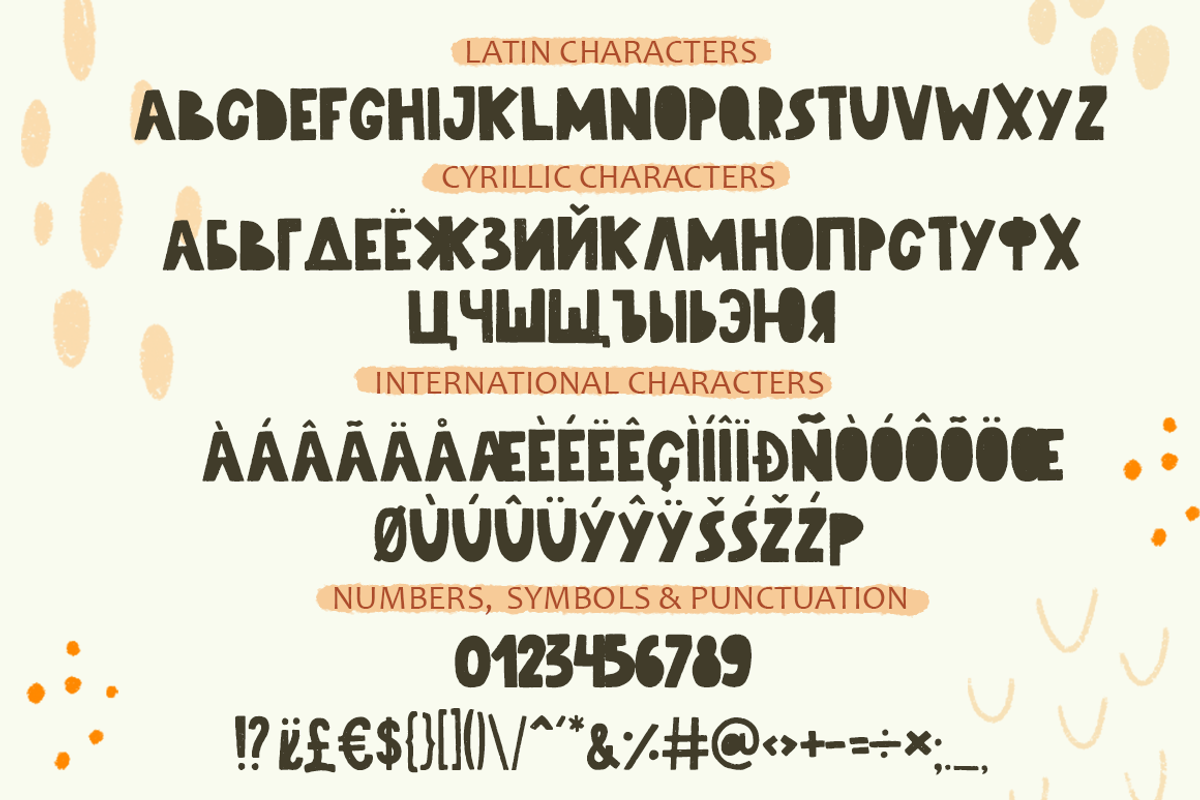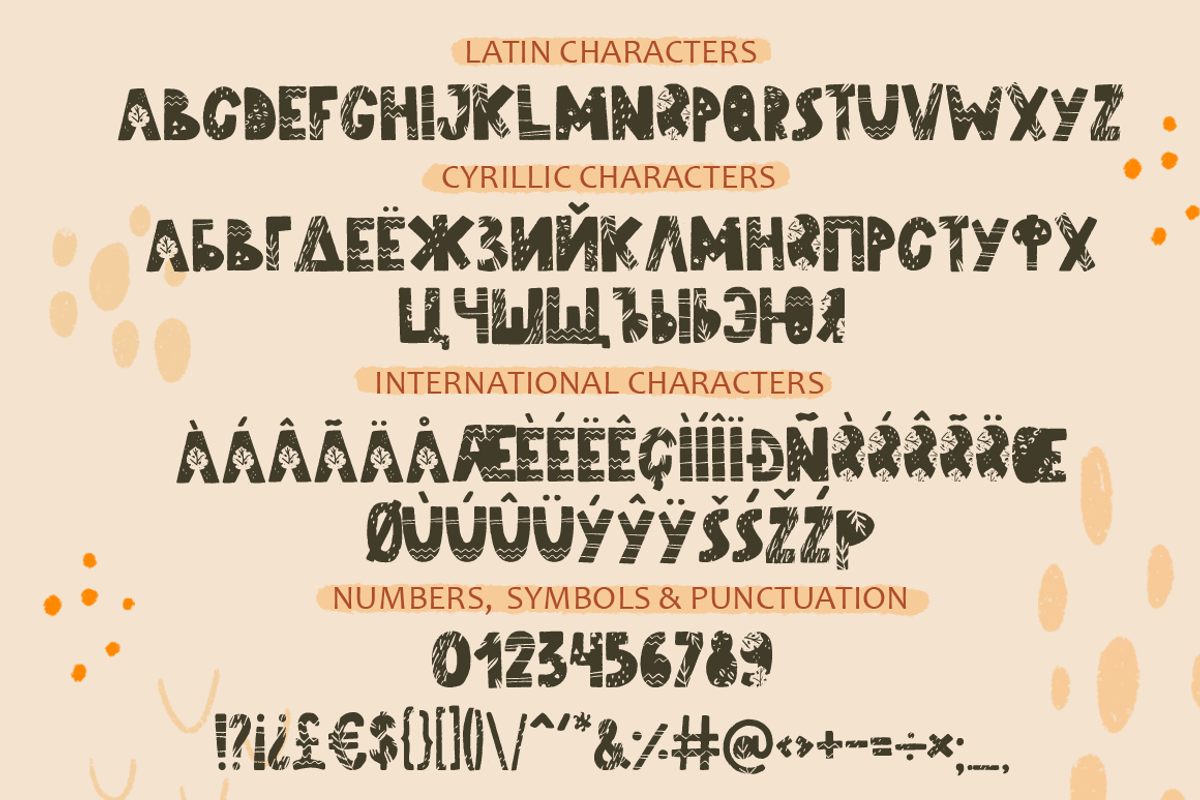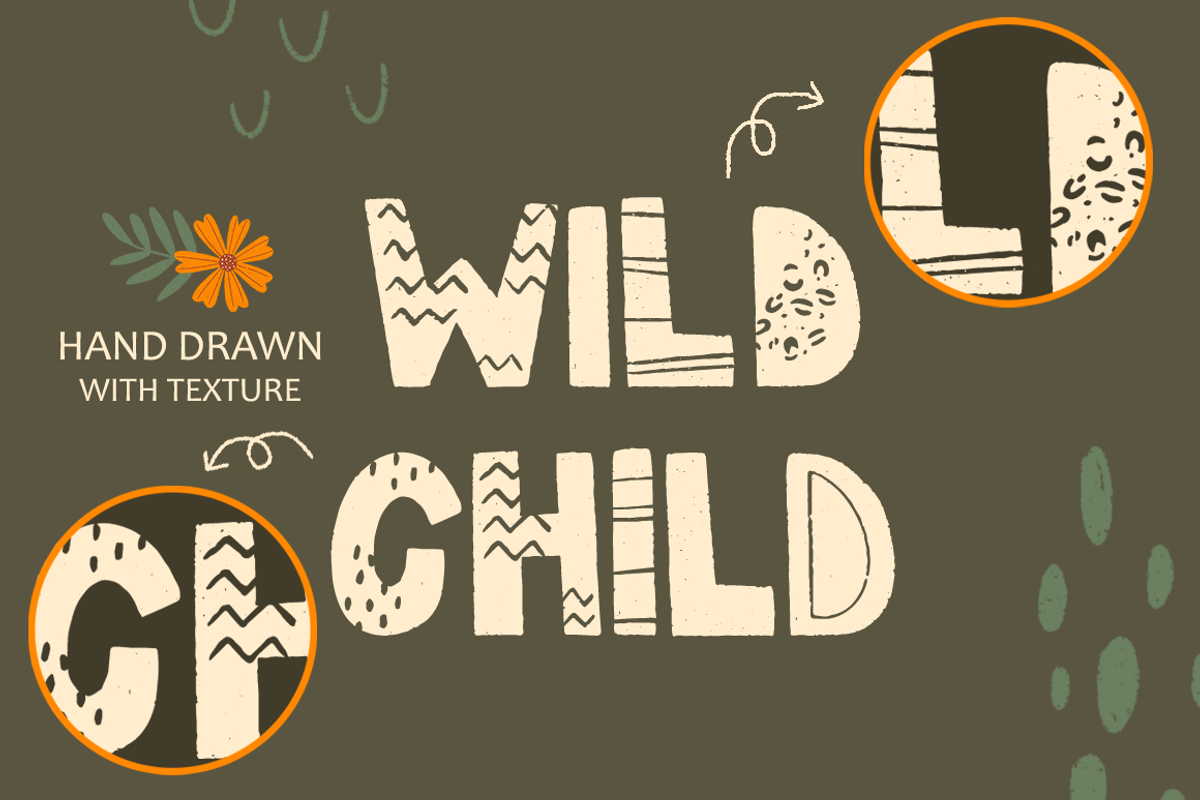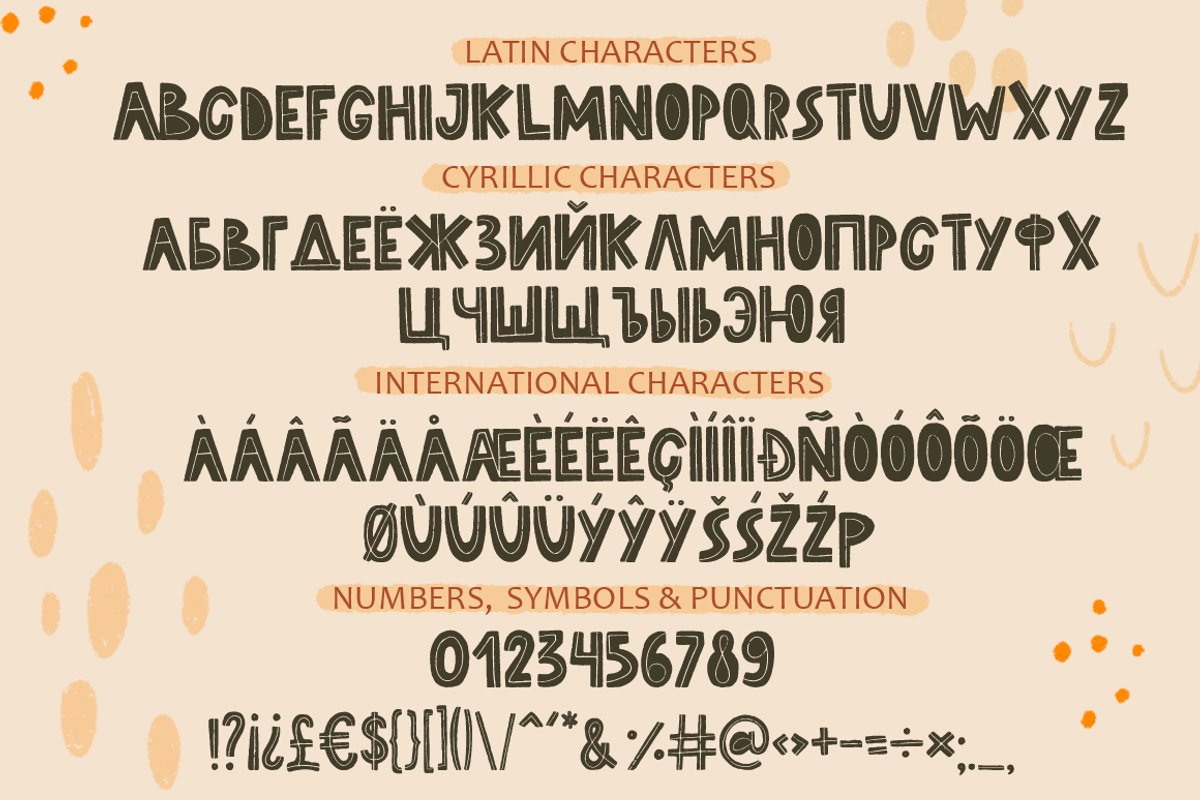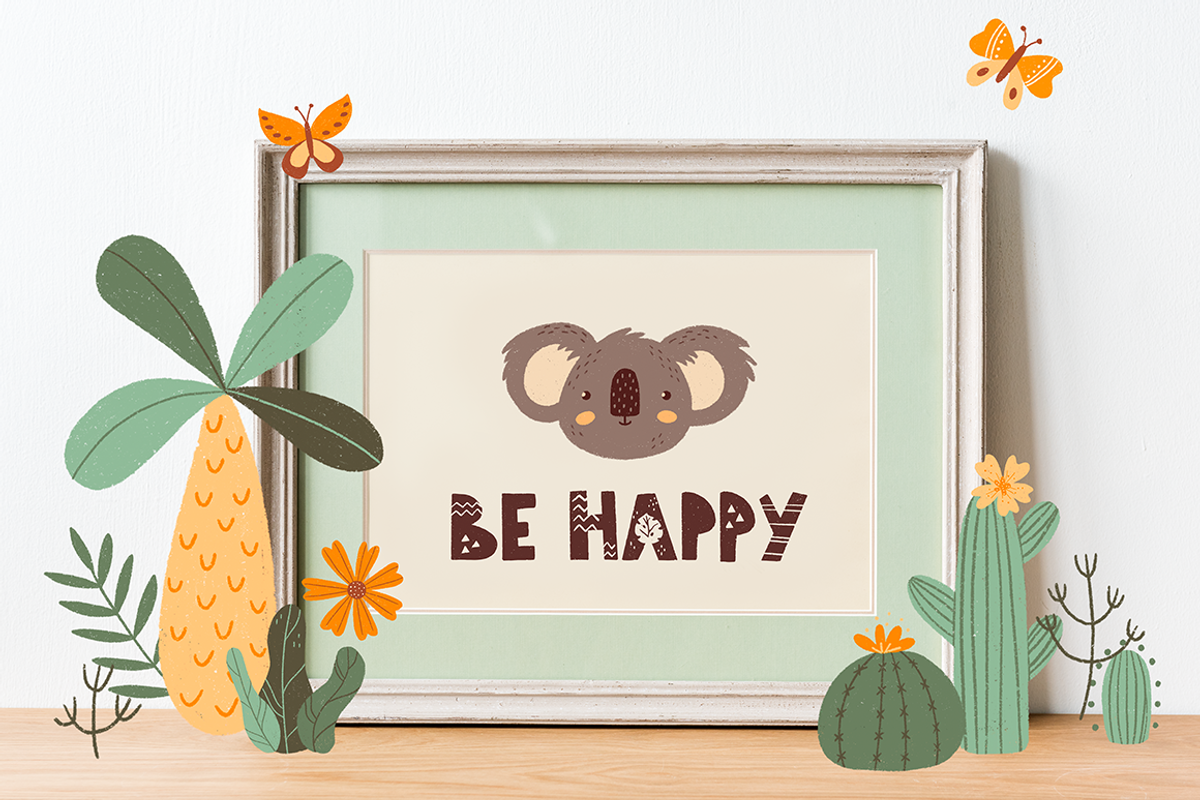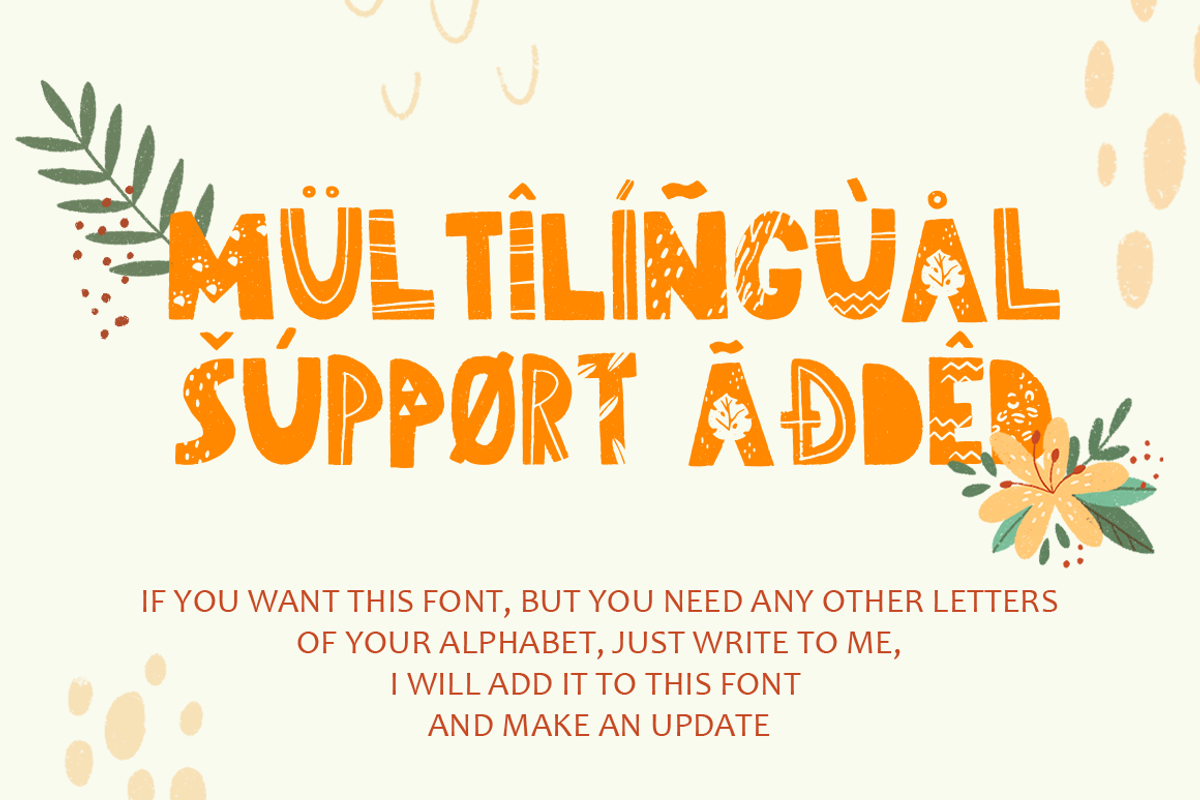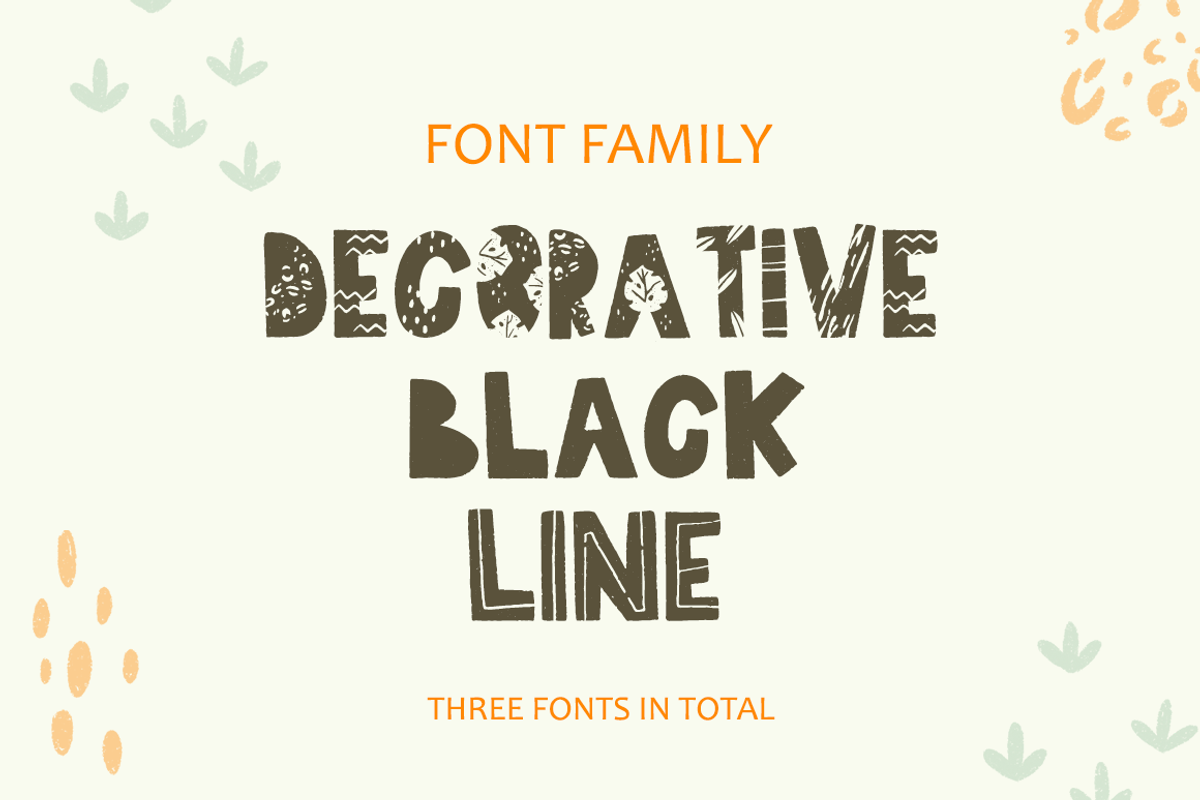
Jungle Vibes • Font Family
Jungle Vibes • Font Family is a stylish hand-drawn display font family. I was inspired by children's Scandinavian motifs and the theme of the tropics and safari. This font family is perfect for decorating the theme party, for children's jungle products, blogs, safari web-design, posters, tropic greeting cards and much more!
Jungle Vibes Font Family included 3 fonts: decorative, black and line
Latin set A-Z in 3 alternatives in total, you can mix it to create a unique design
Cyrillic set А-Я also in 3 variations
International characters also in 3 variations
Numerals & Punctuation also in 3 variations
This is ONLY uppercase.